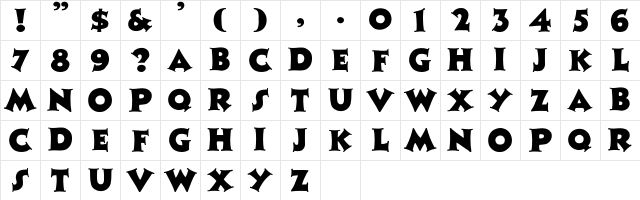
PamilatCaps-Normal Regular
Design Context for PamilatCaps-Normal
PamilatCaps-Normal is a composed and adaptable typeface that performs quietly and consistently across a wide range of design contexts.